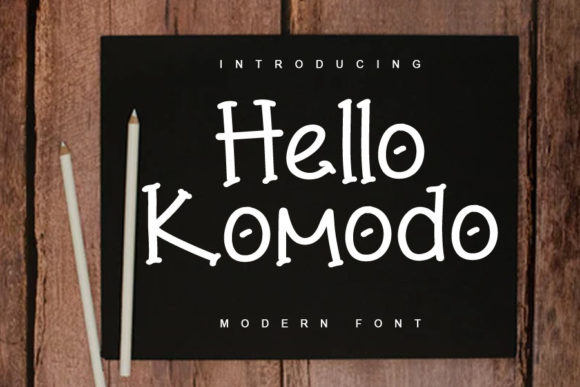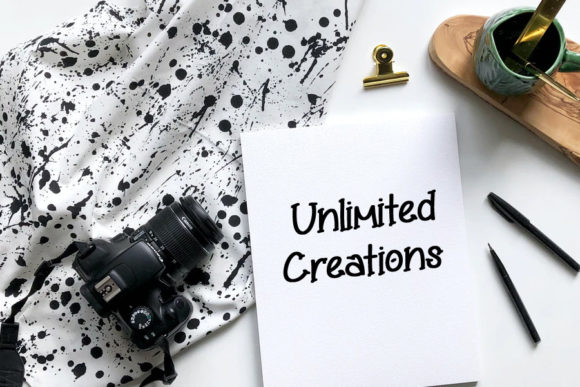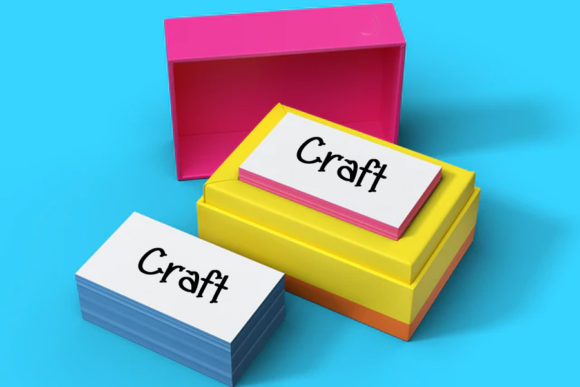
About Hello Komodo Font
Hello Komodo is a simple, quirky and adaptable handwritten font. Its informal style and casual vibe will make this font a go-to choice for each of the creations that require a relaxed touch.